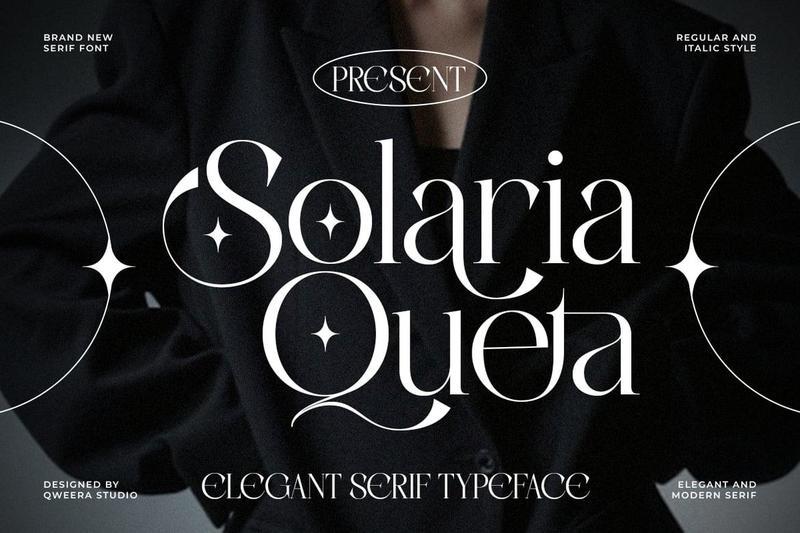
**Solaria Queta** is an elegant modern serif typeface designed to express timeless luxury with contemporary refinement. Featuring graceful curves, sophisticated alternates, and beautiful ligatures, this typeface creates stunning typography for premium branding projects.
Perfect for fashion editorials, luxury logos, beauty packaging, jewelry brands, wedding invitations, boutique identities, magazines, and upscale marketing materials.
Solaria Queta blends modern elegance with editorial sophistication, making it an exceptional choice for designers seeking refined and memorable typography.
**Features**
– Uppercase & lowercase
– Alternates & ligatures
– Multilingual support
– Professional kerning
– Regular & Italic
**Perfect For**
Luxury branding, fashion editorials, jewelry branding, beauty packaging, boutique logos, wedding invitations